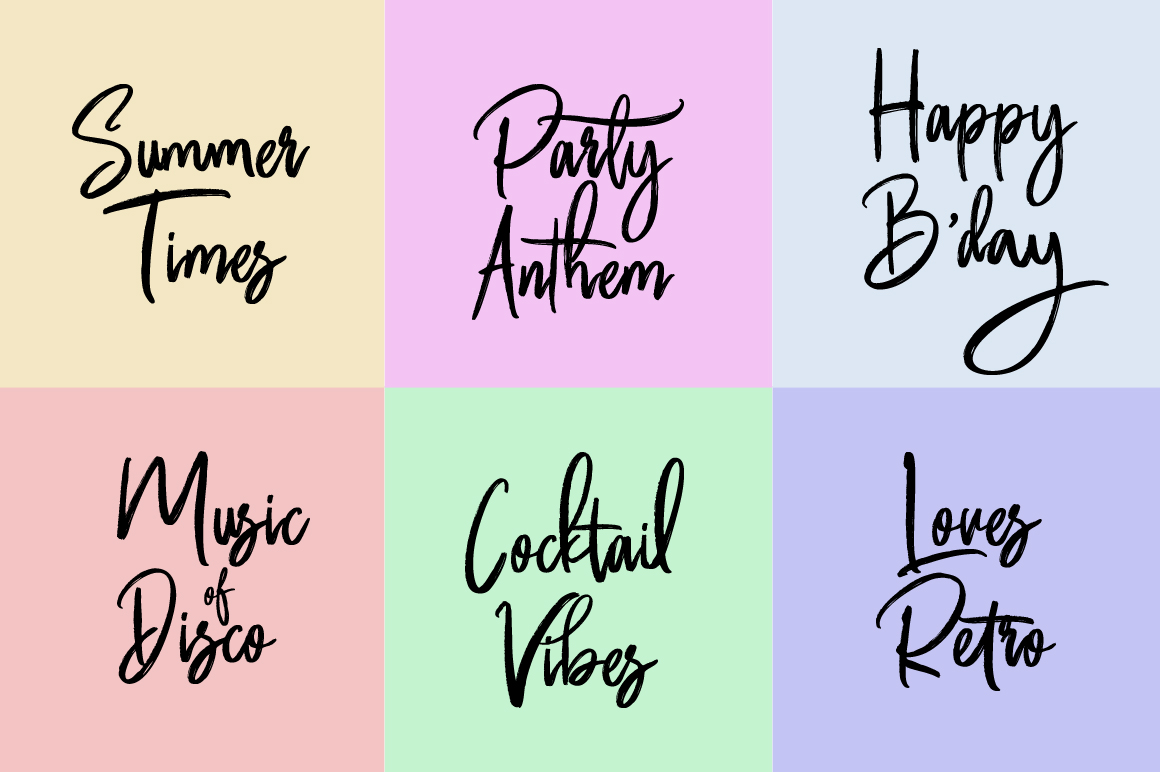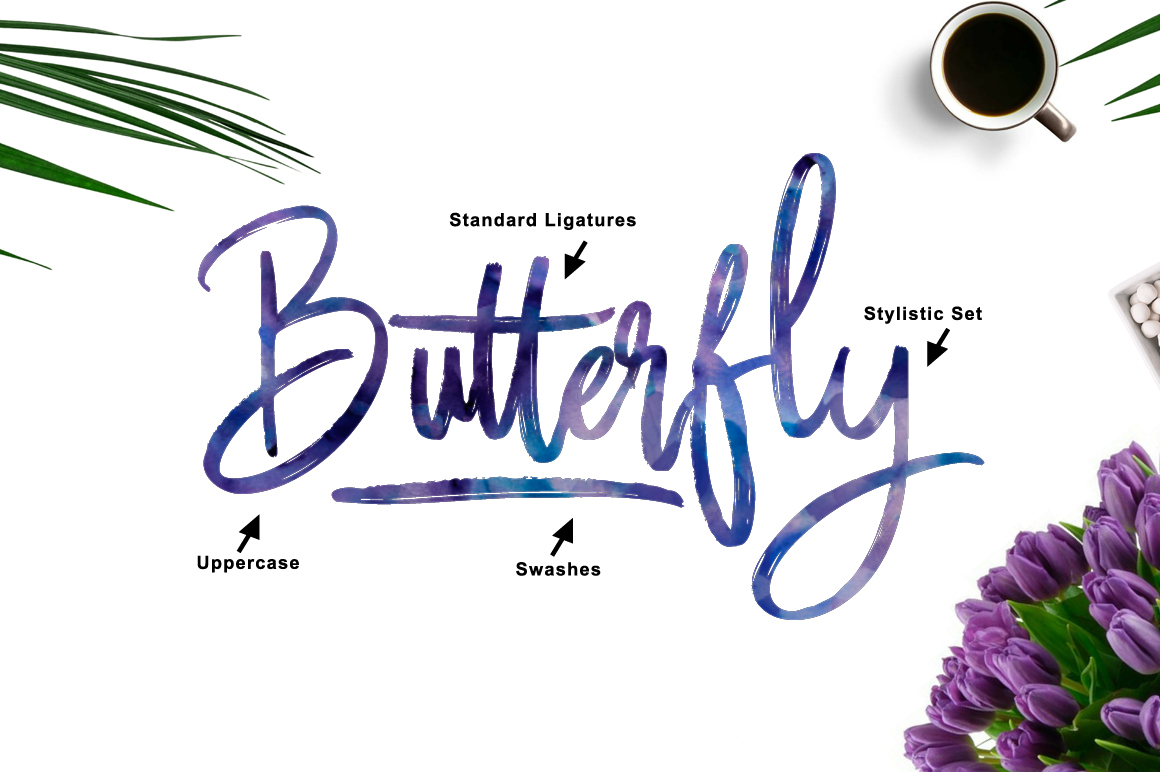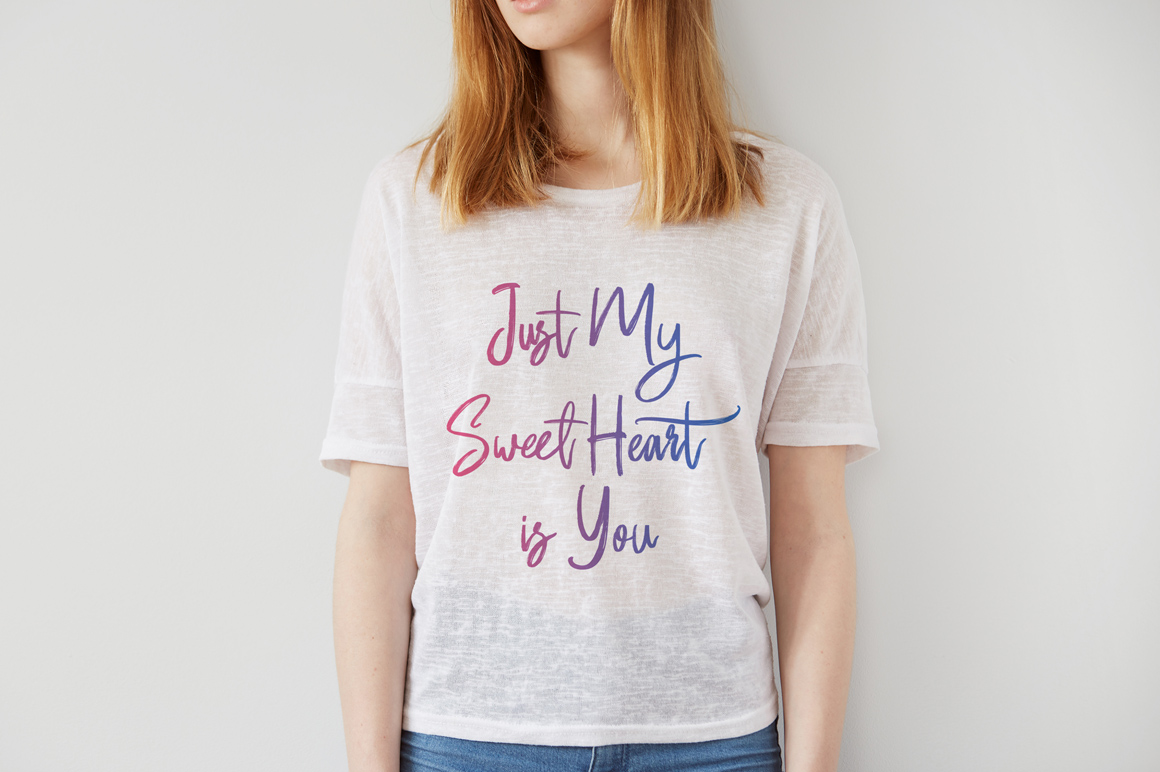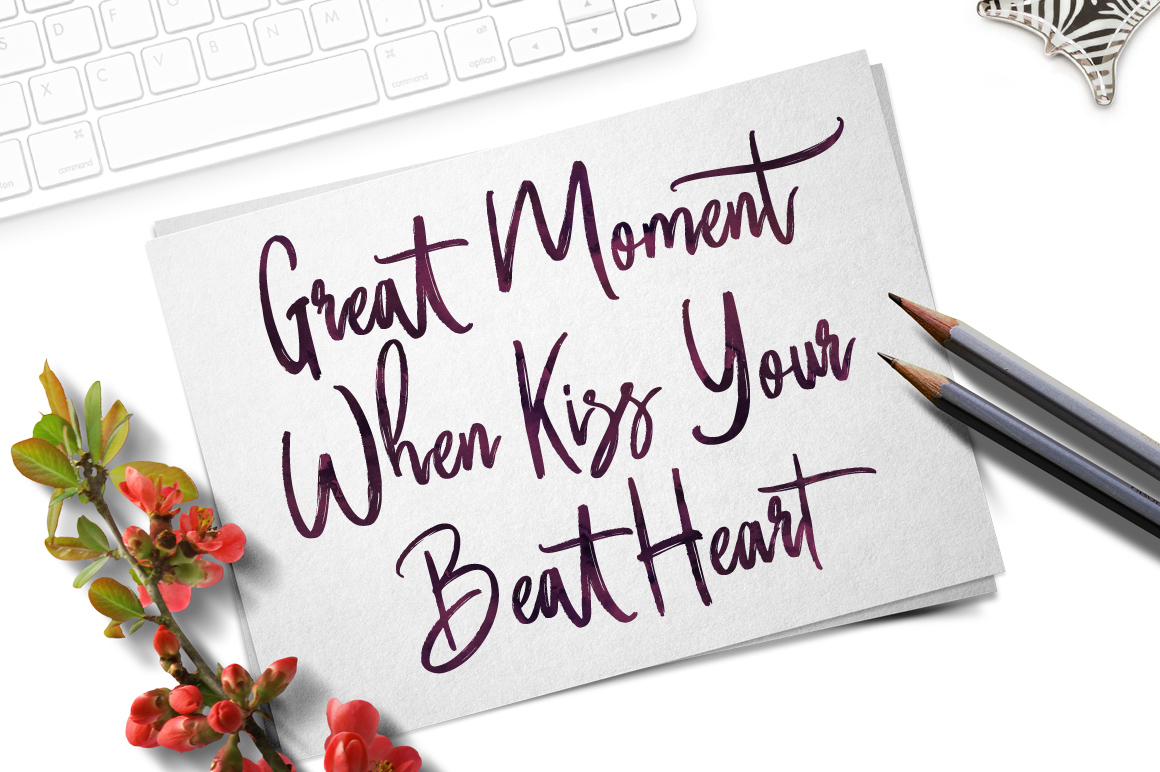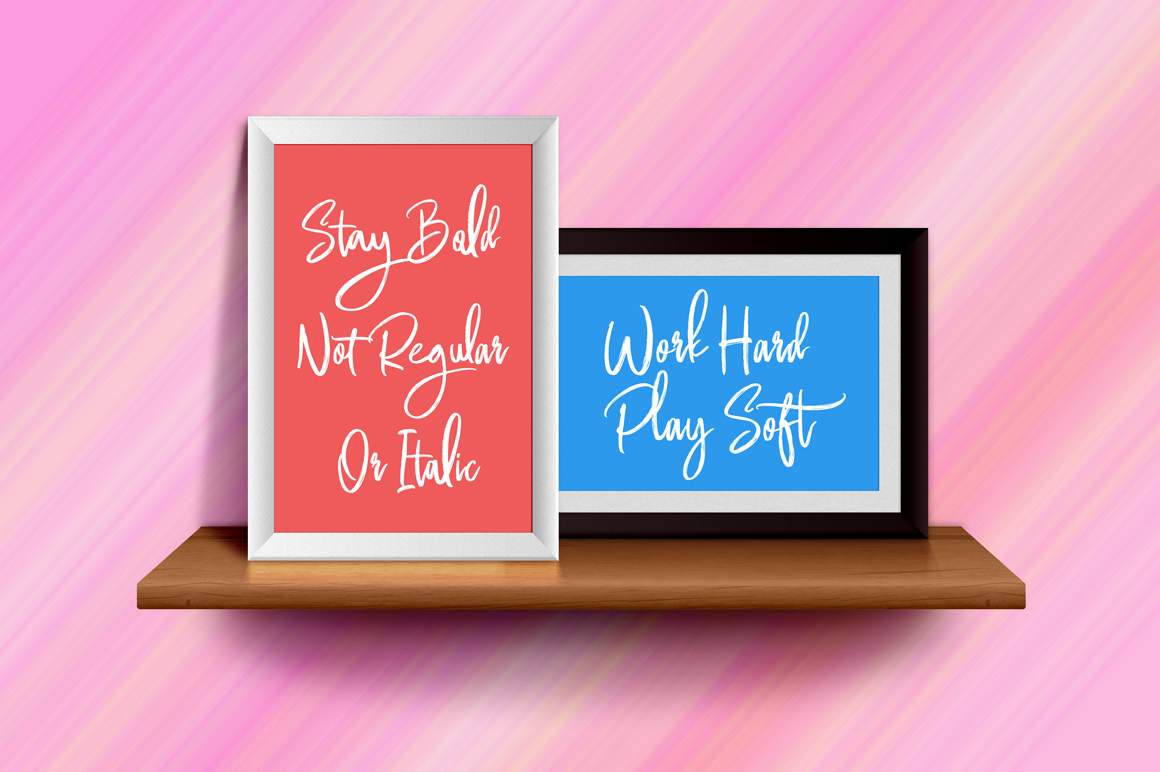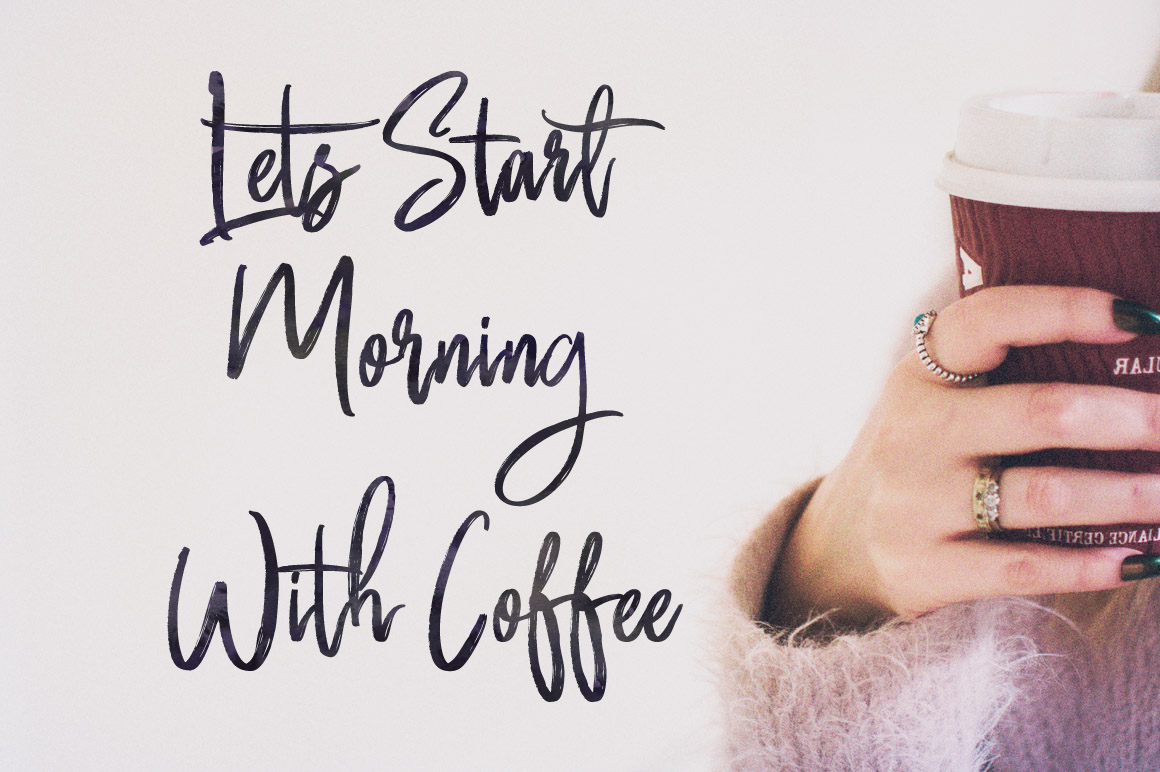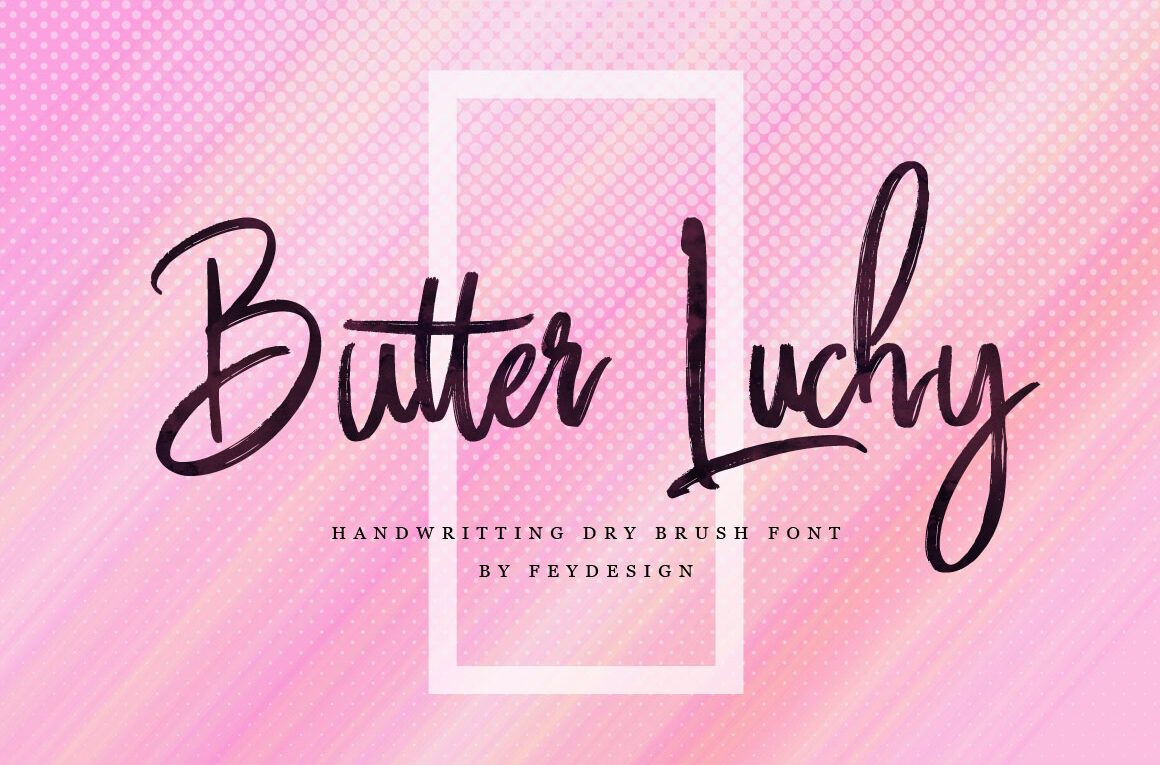
Introducing Butter Luchy Font: Elevate Your Designs with a Touch of Contemporary Elegance
In the world of digital design, fonts play a pivotal role in conveying messages, evoking emotions, and setting the tone for your brand or project. Among the myriad of fonts available, handwritten script fonts have gained immense popularity for their ability to add a personal and elegant touch to designs. One such font that has been making waves in the design community is the Butter Luchy Font. This gorgeous and contemporary handwritten script font is not just a typographical choice; it’s an experience that can transform your designs, making them more engaging, trendy, and memorable.
The Essence of Butter Luchy Font
Butter Luchy is more than just a font; it’s a statement. It’s a great way to give your designs an on-trend vibe that resonates with modern aesthetics while maintaining a level of sophistication and elegance. The fluidity and natural flow of this handwritten script font make it perfect for a wide range of applications, from social media posts and digital banners to packaging and editorial content.
Why Choose Butter Luchy Font?
1. **Contemporary Appeal**: In today’s fast-paced digital world, staying on-trend is crucial. Butter Luchy Font offers a contemporary look that will make your designs stand out without appearing outdated.
2. **Versatility**: Whether you’re working on a project for a fashion brand, a lifestyle blog, or a tech startup, this font adapts seamlessly, ensuring your message is conveyed with style and elegance.
3. **Social Media Friendly**: Social media is all about visuals. The Butter Luchy Font is specifically designed to look great on social media posts, helping you increase engagement and make your content more shareable.
4. **Easy to Read**: Despite its elegant and cursive nature, the Butter Luchy Font remains highly legible, making it perfect for both headings and body text.
Applications of Butter Luchy Font
The versatility of the Butter Luchy Font makes it suitable for a myriad of applications:
• Branding and Logotypes: Create a lasting impression with a unique and memorable brand identity.
• Social Media Graphics: Elevate your social media presence with stylish and engaging posts.
• Packaging Design: Add a touch of elegance to your product packaging.
• Editorial and Magazine Design: Bring a contemporary feel to your editorial projects.
• Web Design: Enhance the user experience with a modern and sophisticated website typography.
Tips for Using Butter Luchy Font Effectively
To maximize the impact of the Butter Luchy Font, consider the following tips:
• Pair it Wisely: Combine Butter Luchy with a simple sans-serif font for body text to create contrast and enhance readability.
• Play with Sizes: Use varying font sizes to create a visual hierarchy and emphasize key messages.
• Adjust Letter Spacing: Fine-tune letter spacing for optimal readability and aesthetic appeal.
The Butter Luchy Font is a powerful tool in the arsenal of designers and crafters looking to infuse their projects with a contemporary and elegant vibe. Its versatility, readability, and on-trend design make it an excellent choice for a wide range of applications. Whether you’re a seasoned designer or a DIY enthusiast, Butter Luchy Font can help elevate your designs, making them more engaging, stylish, and effective. So, why settle for ordinary when you can make your designs extraordinary with Butter Luchy?